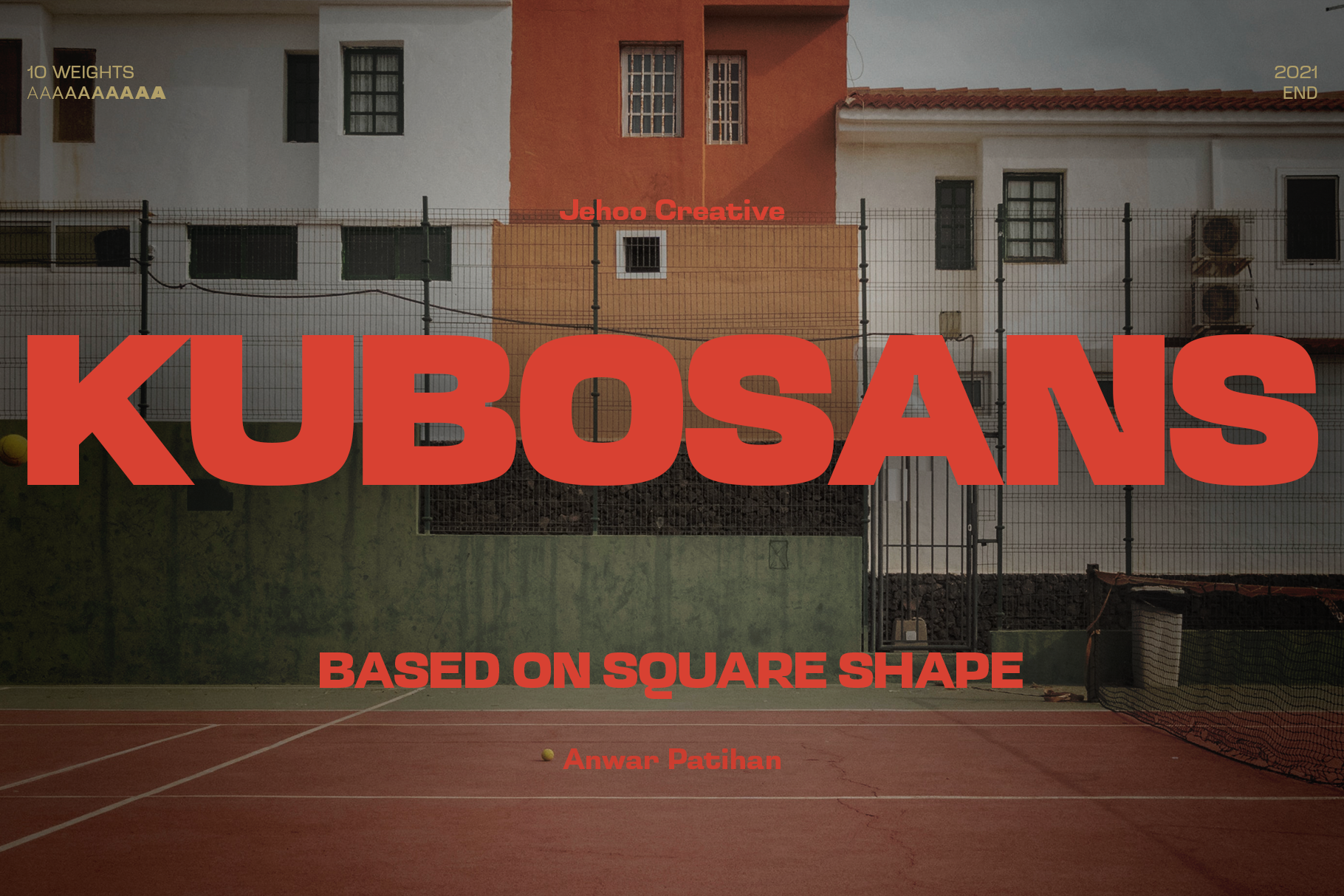
Kubo Sans - Geometric Typeface
Kubo Sans is a Typefamily based on square geometric shapes and subtle as possible. It is designed to be as thick and strong as possible following its basic shape as well as being versatile.
Equipped with 10 weights ranging from Thin to Extra Black, making Kubo sans very suitable for use on the body and even perfectly applied to headlines / titles, giving a bold and strong impression to the design. With a complete weight, Kubo sans will be very integrated for design needs such as, Poster, Cover, Magazine, Web Ui, social media posts, advertisements, books, quotes, movie screens, thumbnails, and many more.